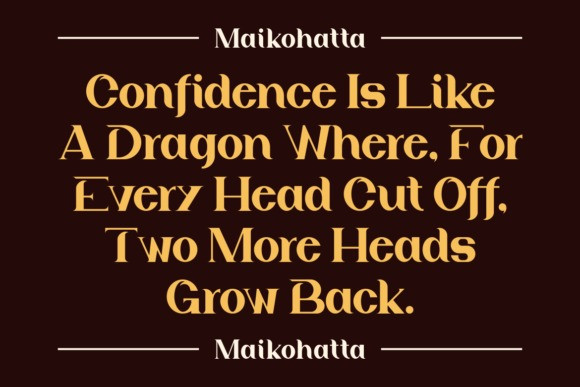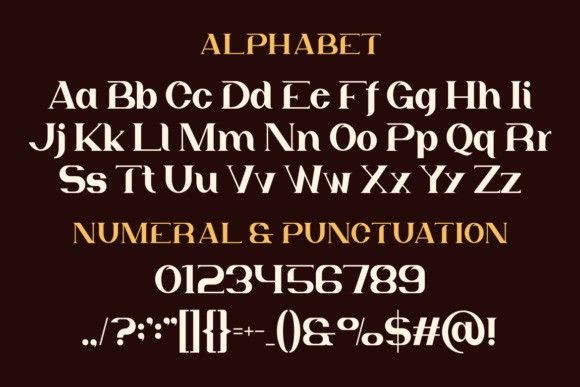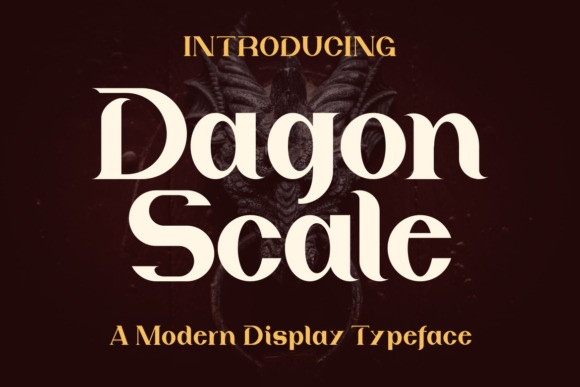
Dagon Scale Font
Dagon Scale Font is a bold and electrifying display font that will make your text shine. With its vibrant colors and sharp angles, this font is perfect for attention-grabbing signage, logos, and product packaging. Its unique and modern design will give your project a cutting-edge look and feel.